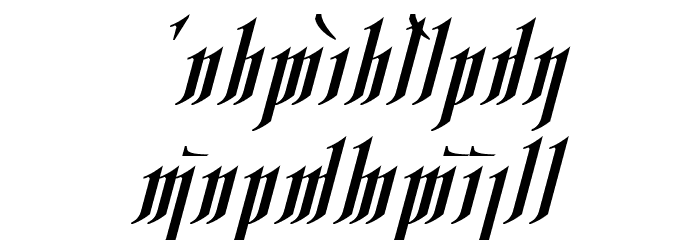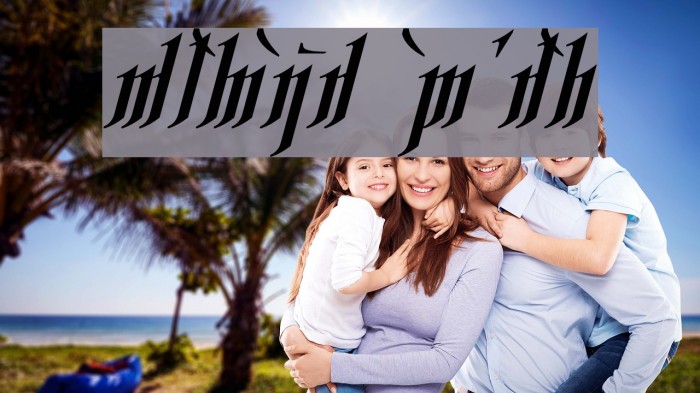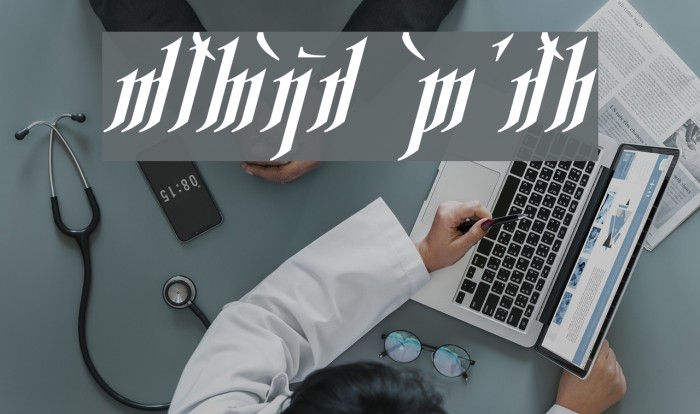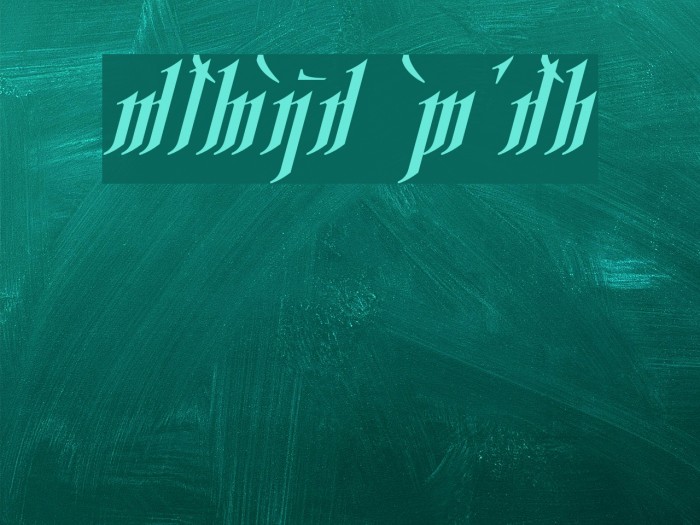
Rhesimol Italic Font
This font exhibits a bold and dynamic style with sharp, angular strokes and a distinct slant, giving it a strong italic appearance. The characters are closely spaced, enhancing the compact and cohesive look. The uppercase and lowercase letters maintain a consistent height, contributing to a uniform and structured design. The font's high contrast between thick and thin strokes adds to its dramatic and eye-catching appeal. Its unique style is reminiscent of traditional calligraphy, yet it maintains a modern edge, making it suitable for various creative applications.
A bold, italic font with sharp, angular strokes and high contrast.
- Proposed Projects: Ideal for branding, poster design, and any project requiring a striking and modern calligraphic touch.
- Character Spacing: Tight